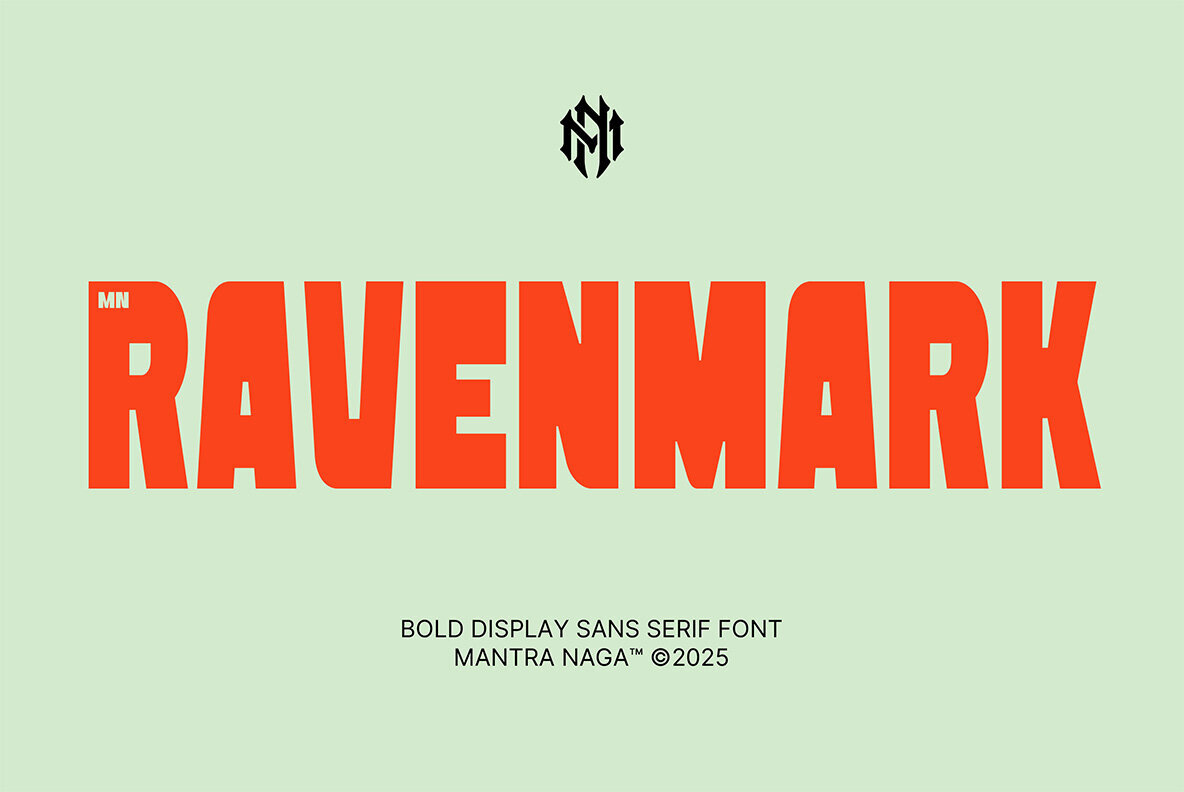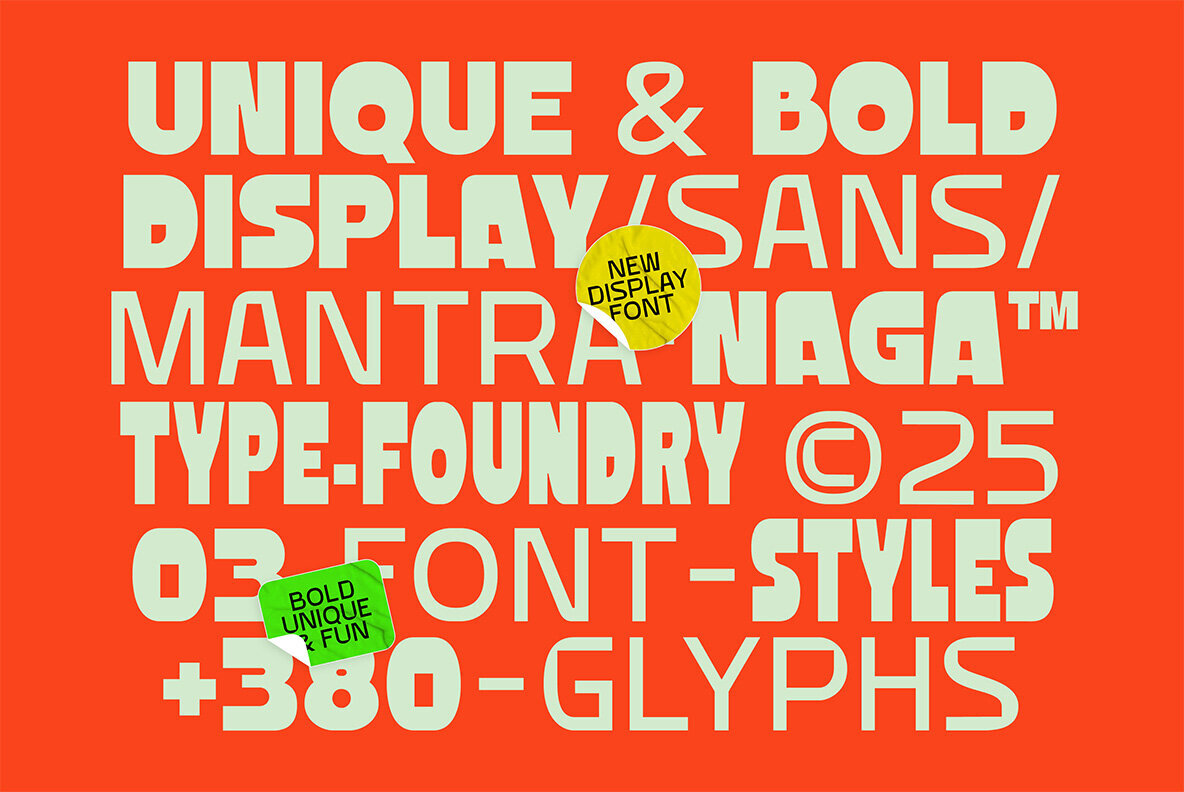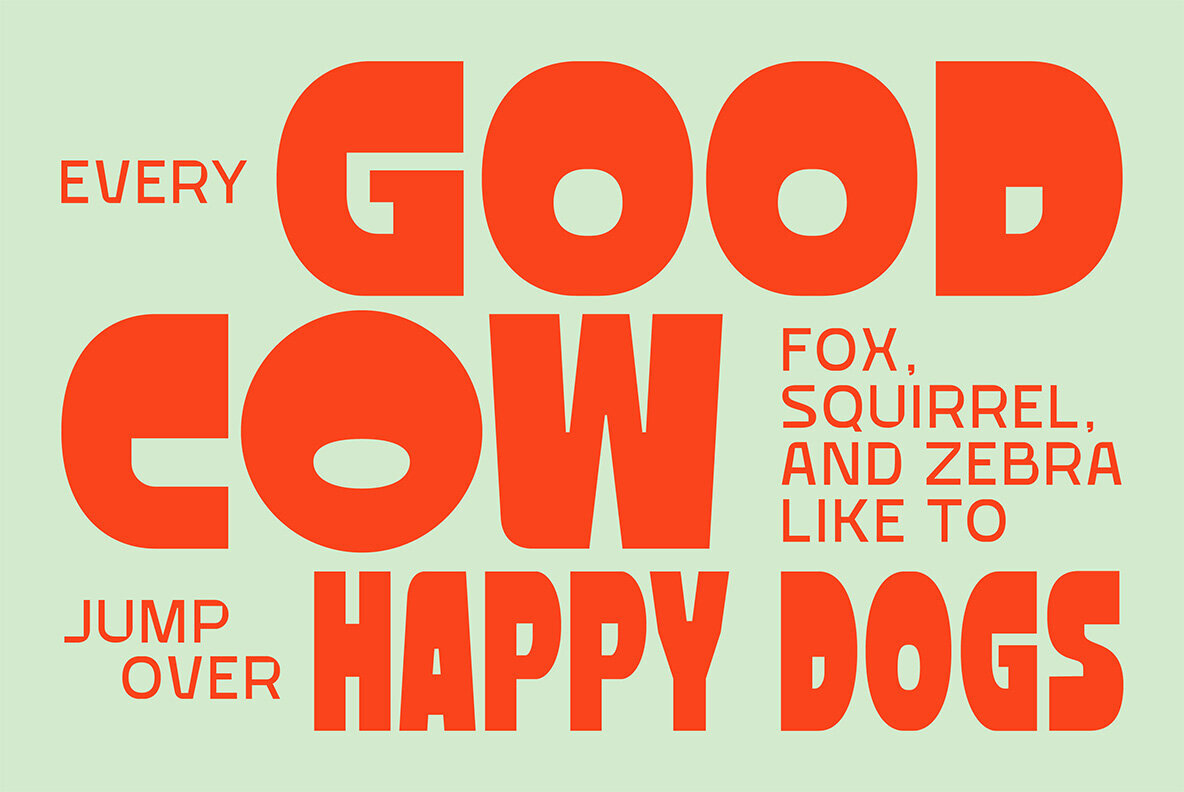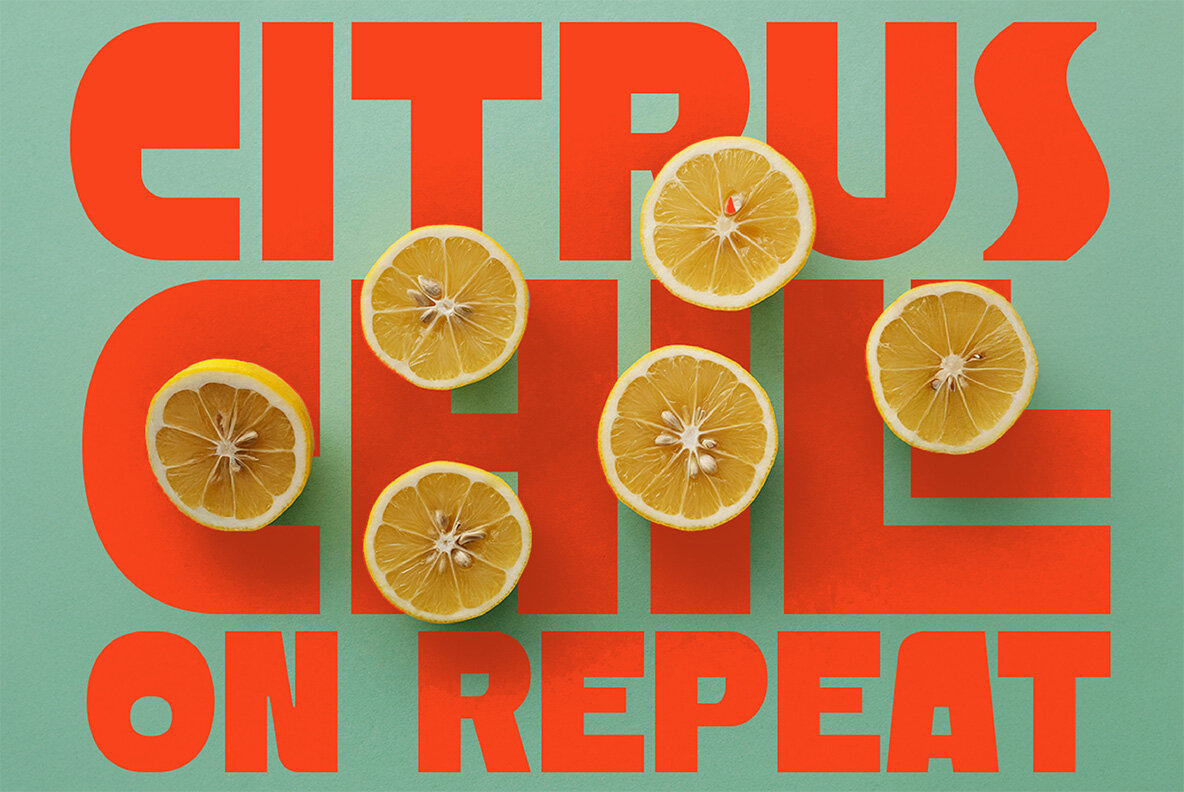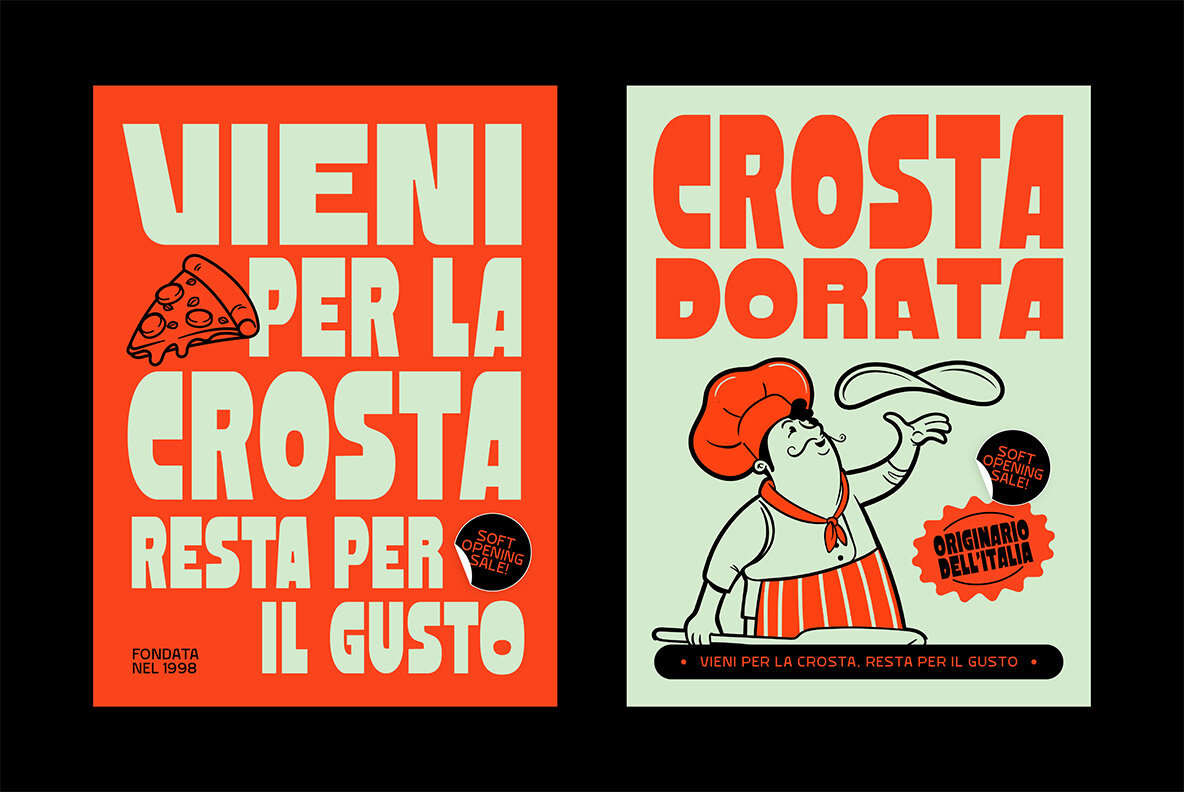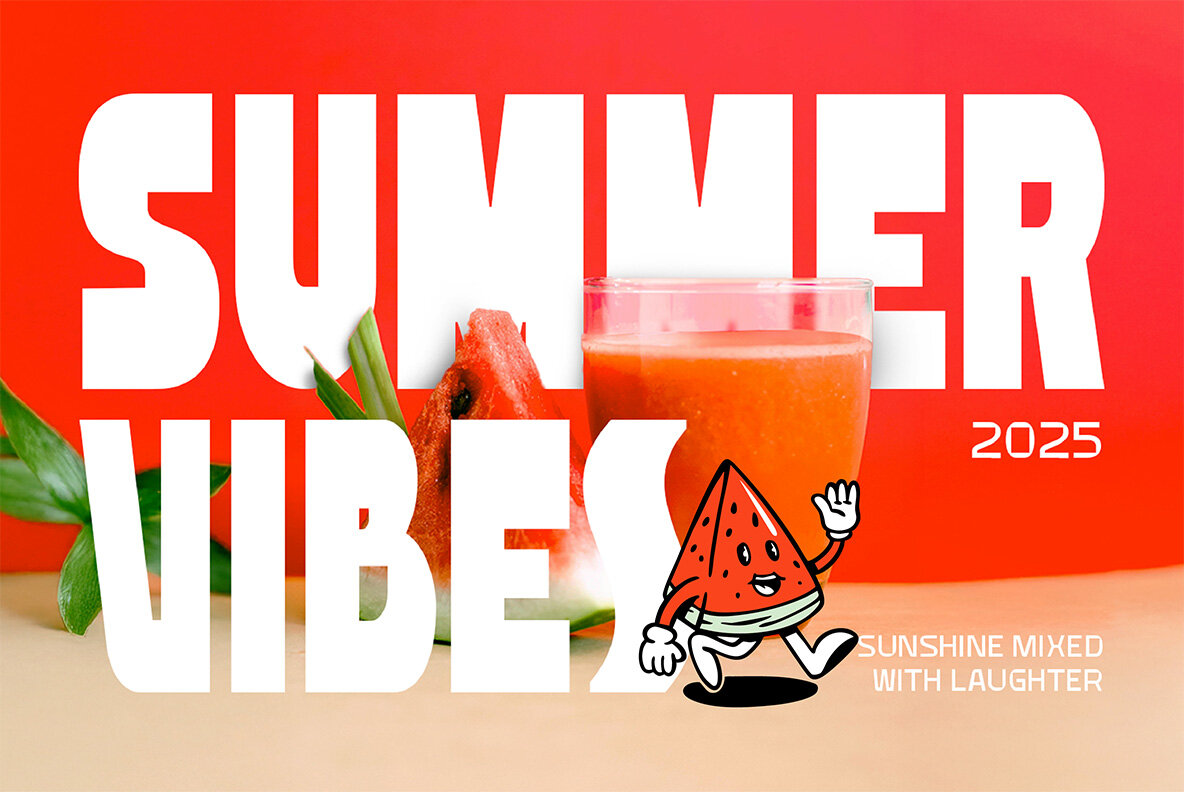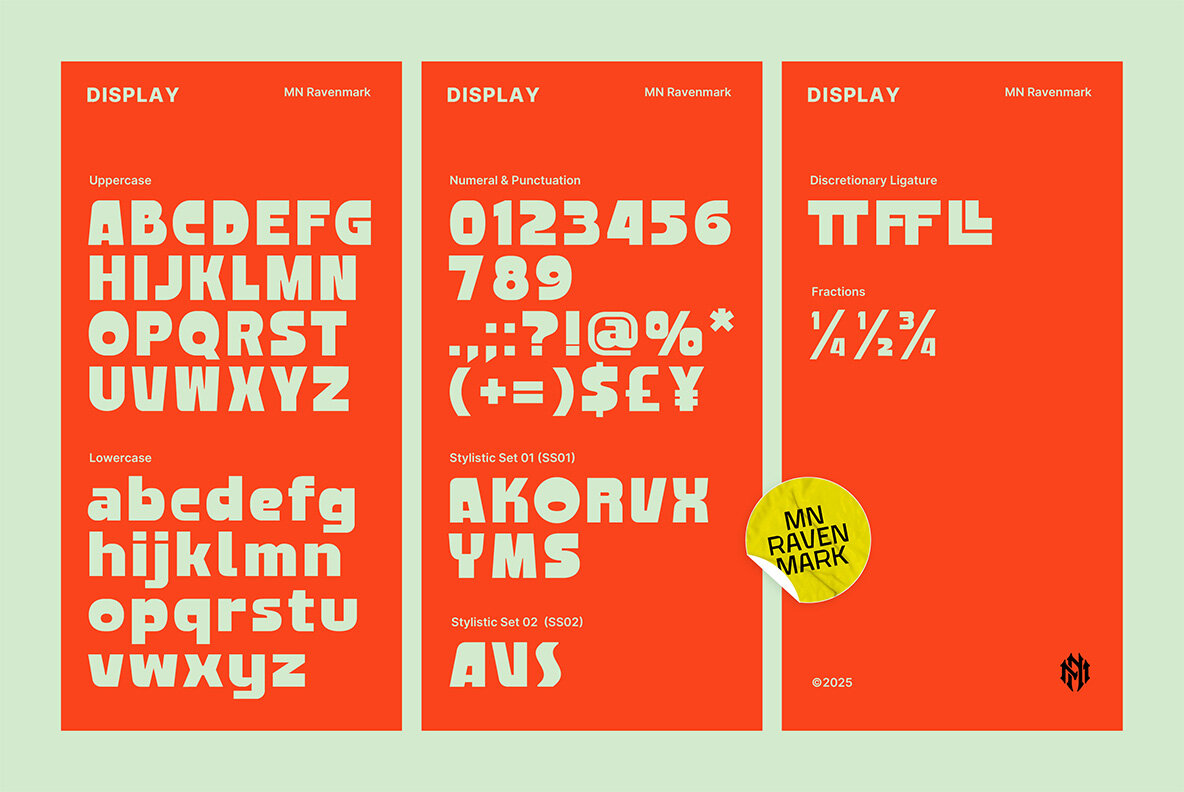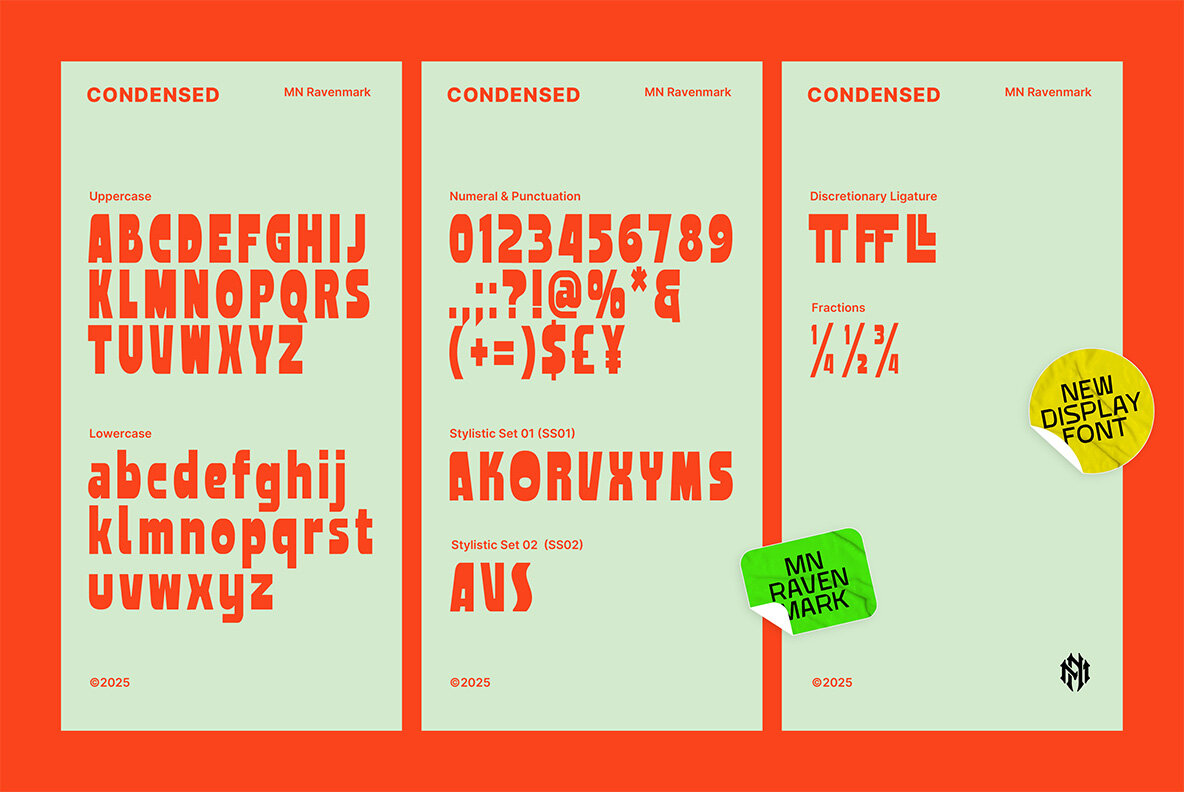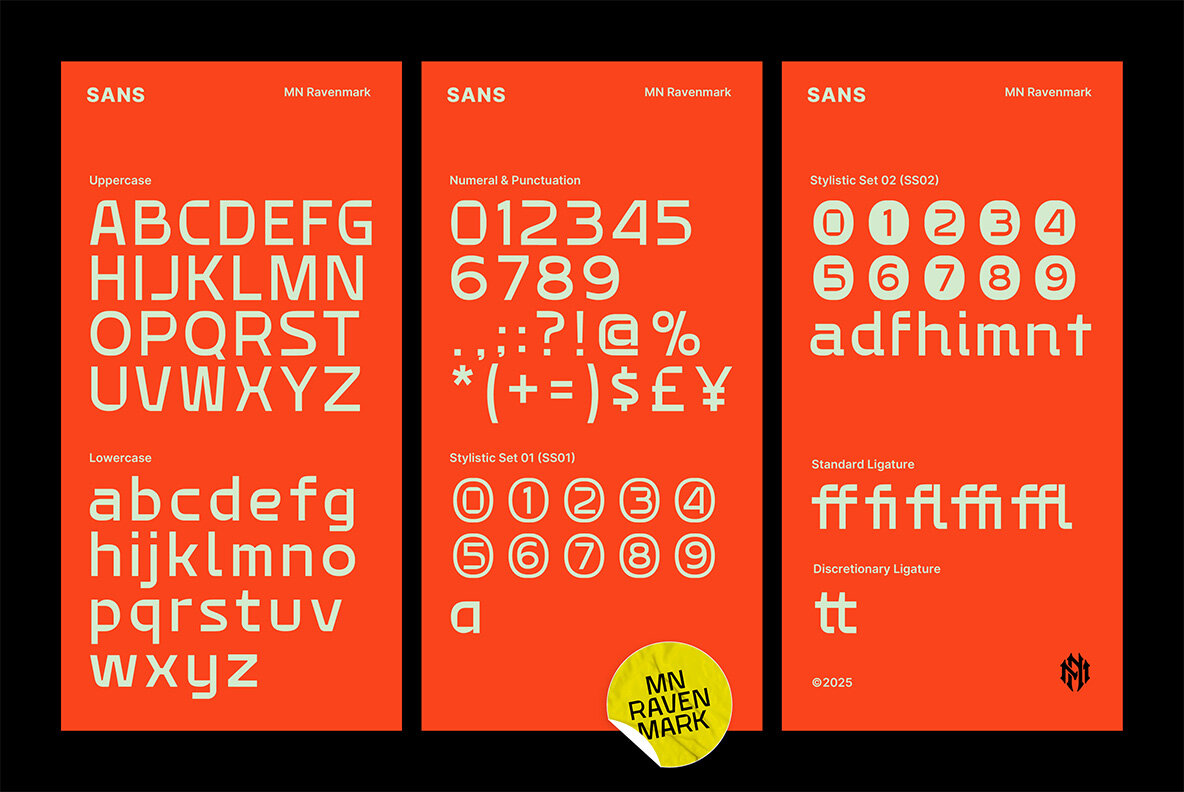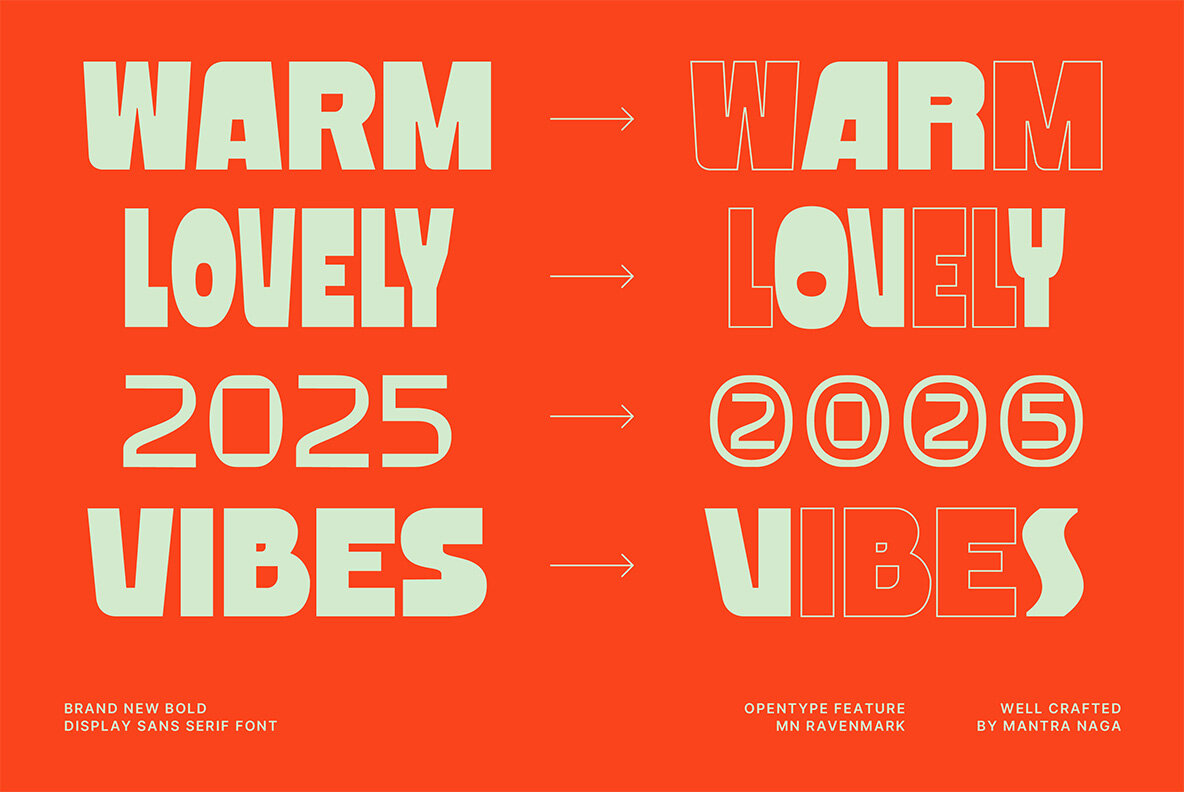
MN Ravenmark Font
MN Ravenmark stands out as a modern display sans serif font family, comprising three complementary styles: Display, Display Condensed, and Sans. This typeface artfully marries vernacular typography with hints of Bauhaus and Art Deco, resulting in a bold design that's functional across various creative contexts. The Display and Display Condensed styles deliver high visual impact, perfect for commanding headlines, vibrant posters, and dynamic event branding, with their strong geometric forms. Meanwhile, the Sans style offers balance and readability for body text, making it an ideal partner for the display styles. MN Ravenmark is tailored for graphic designers, creative agencies, and brand developers seeking character and cohesion in their projects—from summer events to food and beverage branding.MN Ravenmark: Distinctive Sans Serif Font Family
Versatile Styles for Diverse Design Needs